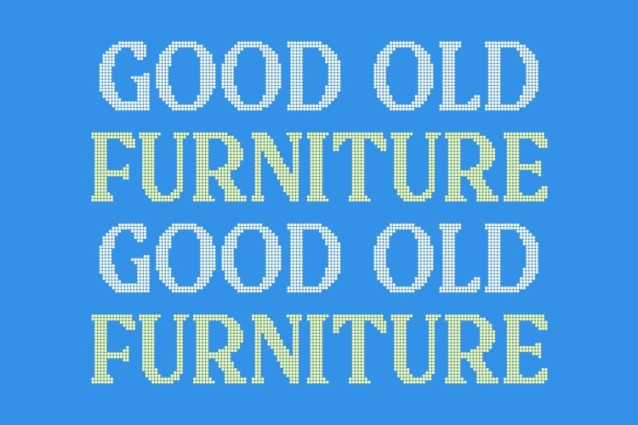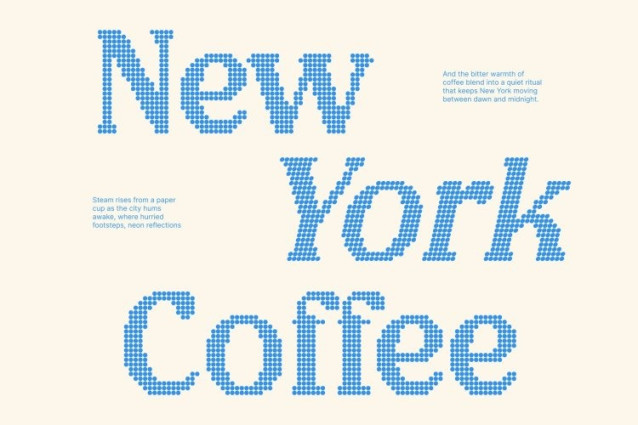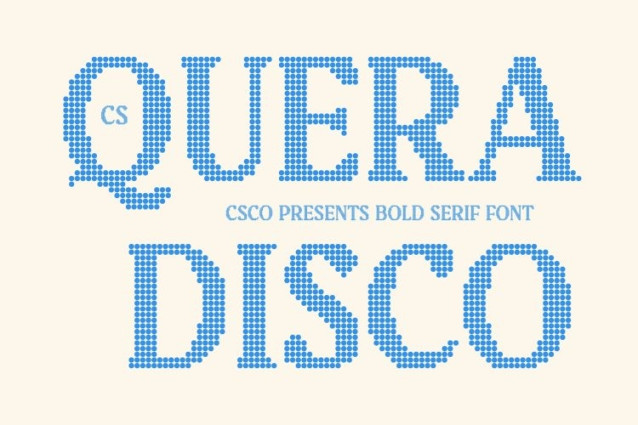
CS Quera Disco Font
CS Quera Disco Font is a bold display font designed to capture attention instantly, now enhanced with a vibrant disco-inspired dotted texture. Its thick, confident letterforms maintain a powerful visual presence, while the sparkling dot pattern adds rhythm and festive energy. This combination creates typography that feels bold, lively, and visually unforgettable.
Retro Influence with Luminous Character
Inspired by subtle retro aesthetics, this font blends nostalgic charm with modern boldness. The structured letterforms evoke classic display typography, while the dotted disco style introduces a playful sparkle that makes the design feel fresh and dynamic.
Powerful and Readable Display Typography
Despite its decorative texture, the font maintains excellent readability thanks to its strong shapes and balanced proportions. The bold structure ensures clarity in large display settings, making it ideal for impactful headlines and statement typography.
Perfect for Posters, Headlines, and Retro Branding
This font excels in posters, bold headlines, branding projects, and nostalgic design themes. Its fusion of retro personality and disco-inspired sparkle creates a distinctive style that stands out across print and digital media.